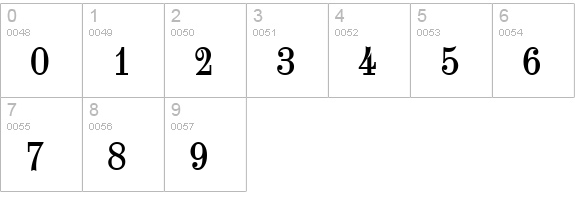
Indy 17 Bold Font Details
Indy 17 Bold is a strong, high-contrast variant in the Indy typeface family \xE2\x80\x94 well suited to headlines, attention-grabbing titles, and strong calls-to-action.
Indy 17 Bold font is the epitome of boldness and confidence. With its strong and prominent design, it is sure to grab attention and make a statement. This font exudes a sense of power and authority, making it perfect for headlines, titles, and logo designs. What sets Indy 17 Bold font apart is not just its striking appearance, but also its versatility. It can be used in various design projects, from print materials to digital graphics, without losing any of its impact. Its clean lines and well-defined characters ensure legibility even at smaller sizes, making it suitable for both large-scale displays and subtle accents. One of the best things about Indy 17 Bold font is that it is freely available to download at FontsMarket.com. This means that you can easily access and use this fantastic font without any restrictions. Whether you are a professional designer or someone looking to add a touch of style to your personal projects, Indy 17 Bold font is here to enhance your creativity. So why wait? Take advantage of this incredible opportunity to elevate your designs with Indy 17 Bold font. Download it for free at FontsMarket.com and let your imagination run wild. Unleash the power of boldness and make a lasting impression with Indy 17 Bold font.